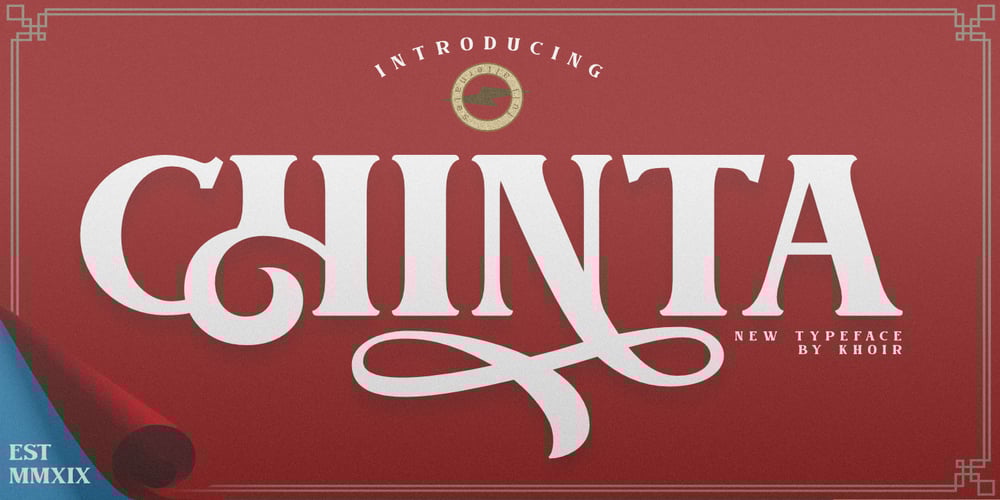
Chinta Retro Font Font Family was designed by Muhammad Romzul Khoir and published by Khoir. Chinta Retro Font contains 2 styles and family package options. Launched Chinta, new serif type modern fonts wrapped in a soft classic touch combined with crooked and crooked alternative fonts, will make it one of the conveniences to explore various types of designs.With a soft touch but does not leave an elegant impression, this font is suitable for using logos, food design, weddings, branding needs, posters, emblems, advertising and much more. so what are you waiting for?FEATURES CHINTA ONE CHINTA TWO So what are you waiting for? immediately purchase this font.